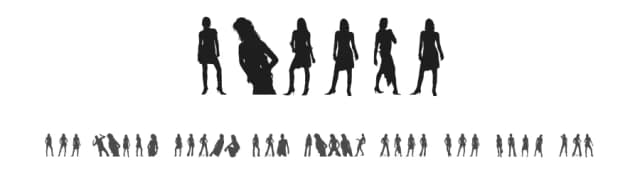
About Subikto Tree Font
| Designer | ValΒrie Desrochers, SΒbastien ThΒraulaz |
Subikto Tree Font is a versatile dingbats font that works for both headings and body text. Pair it with a contrasting sans-serif or serif font to add visual interest and a clear distinction between titles and body copy.